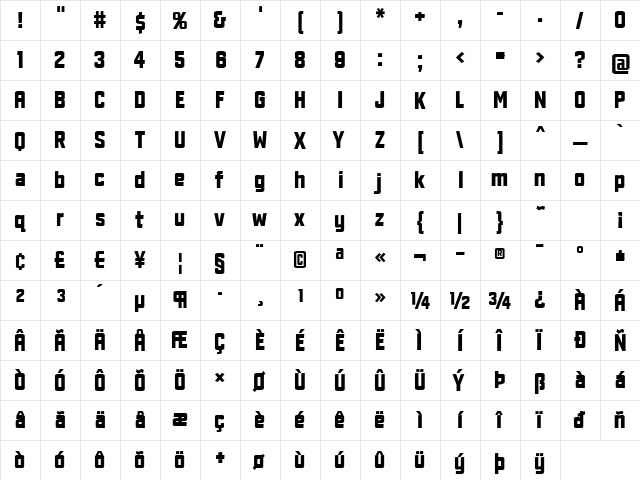
TX Manifesto Regular
Design Context for TX Manifesto Typeface
TX Manifesto takes a measured approach to typography — its balanced proportions and neutral character make it a reliable workhorse for both digital and print work.